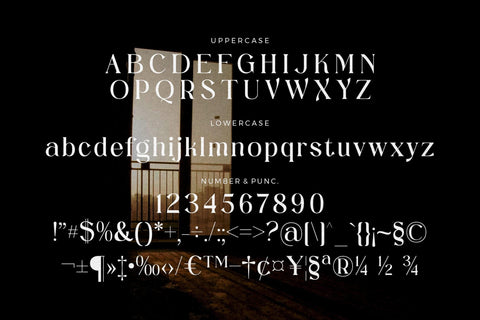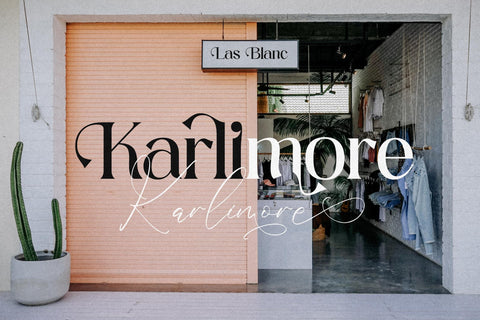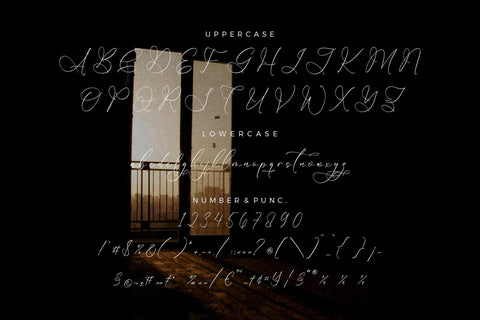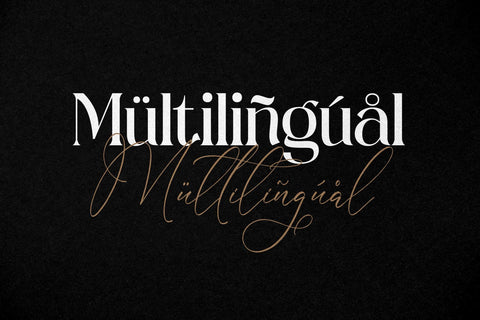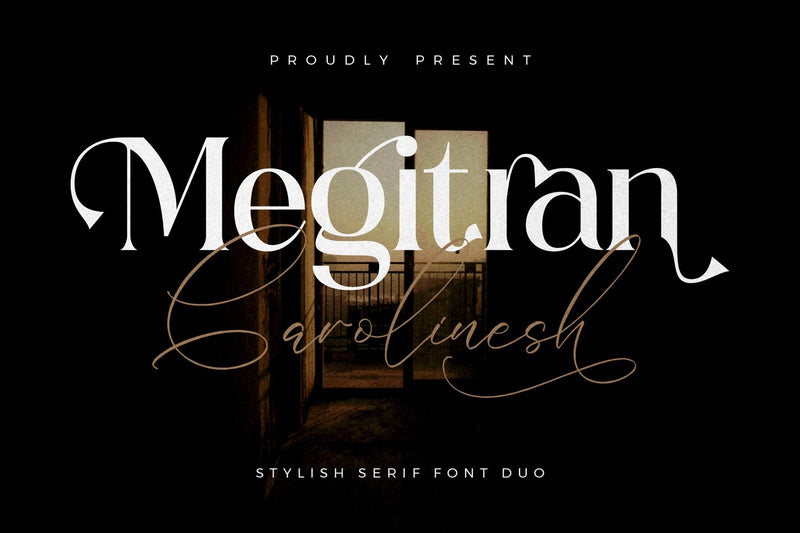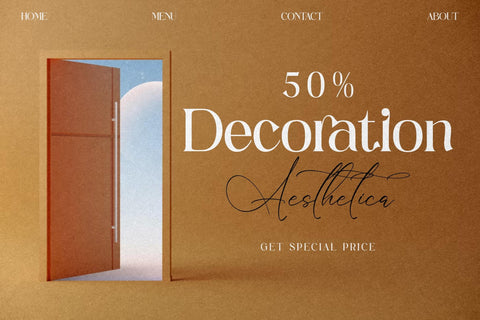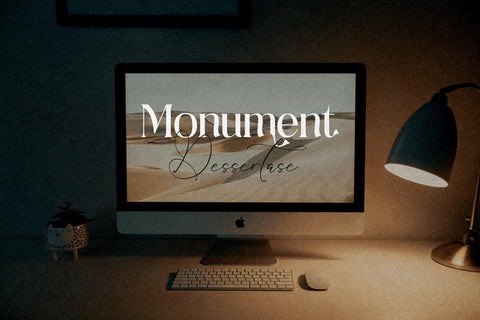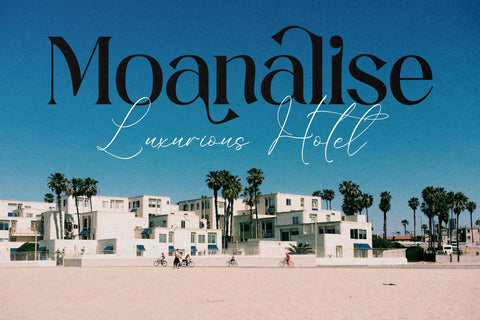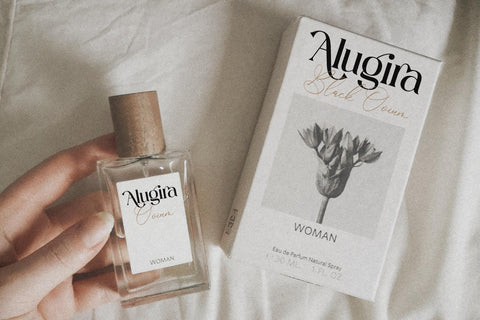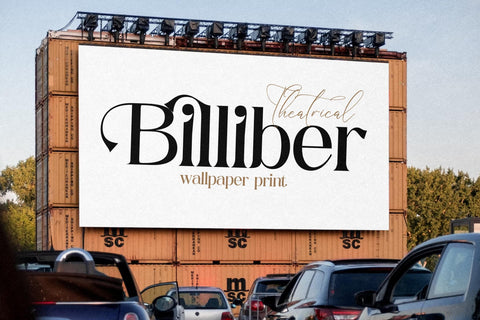
Megitran Carolinesh Font Duo
Proudly present Megitran Carolinesh Font Duo , created by Storytype,
A serif and script typeface that has own unique style & modern look.